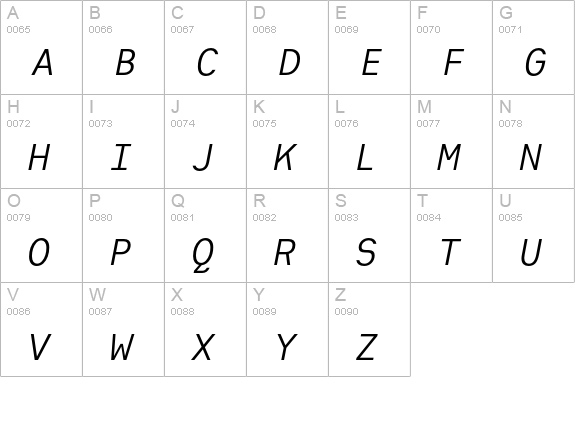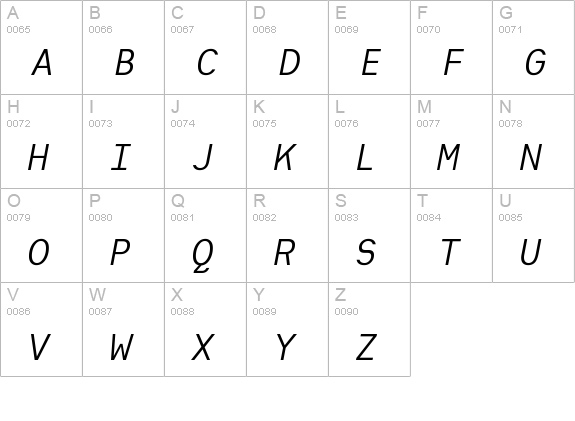
Heimat Mono Regular Italic Font Details
Heimat Mono Regular Italic is the standard, neutral, italic variant in the Heimat typeface family \xE2\x80\x94 well suited to general body text, paragraphs, and standard typographic work.
Heimat Mono Regular Italic font is a sleek and modern typeface designed for digital and print projects that require a contemporary edge. Its clean lines and stylish curves make it a versatile choice for a wide range of design applications. The italic styling adds a touch of elegance and sophistication to any text or graphic element. What sets Heimat Mono Regular Italic font apart is not only its aesthetic appeal but also its accessibility. This font is available for free download at FontsMarket.com, making it a valuable resource for designers, students, and anyone seeking high-quality typography without breaking the bank. Whether you're creating a website, designing a flyer, or working on a branding project, Heimat Mono Regular Italic font is a fantastic choice that won't cost you a penny.